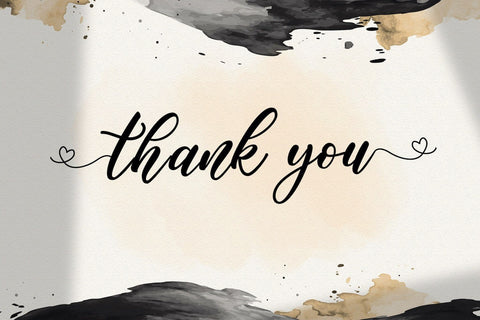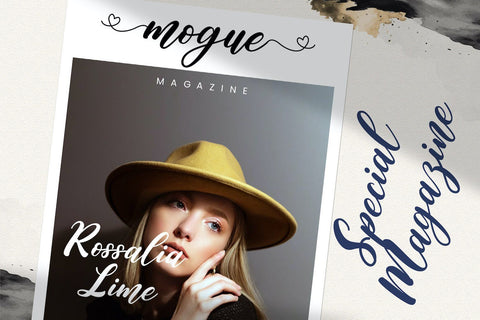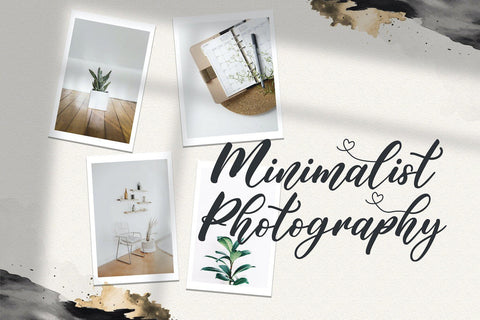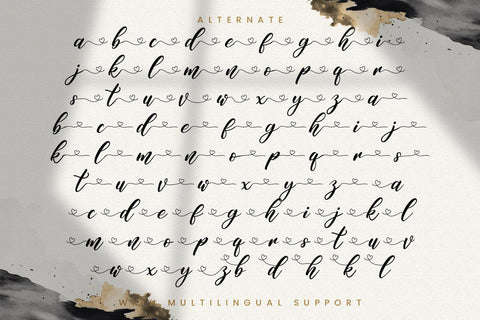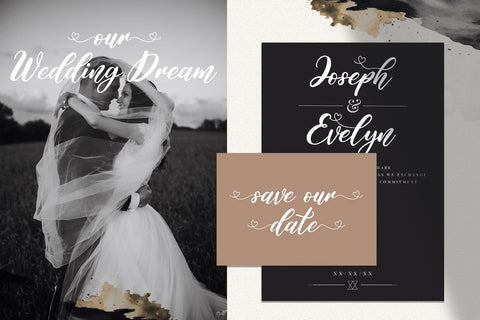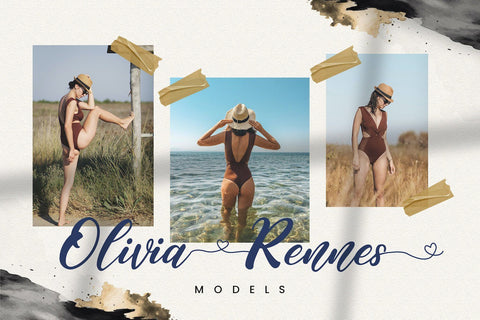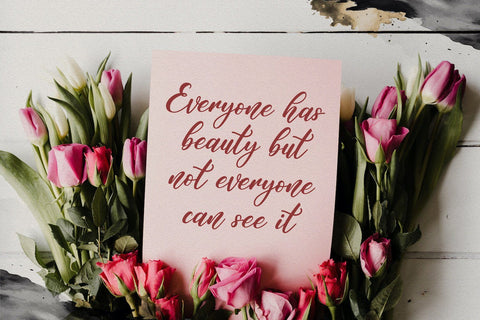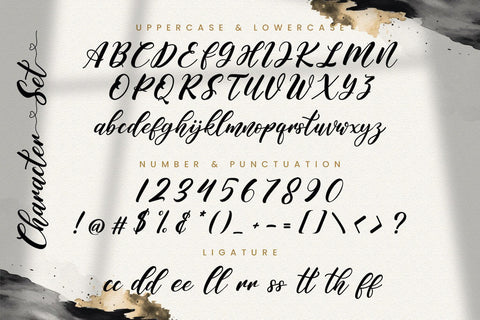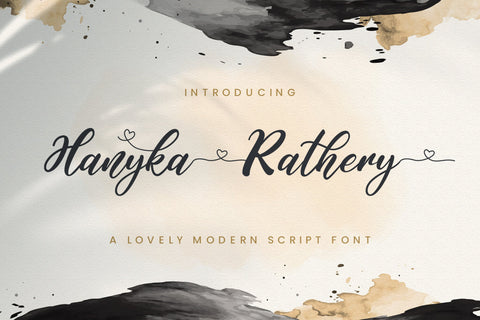
Hanyka Rathery - Lovely Script Font
Introducing Hanyka Rathery - Lovely Script Font
Hanyka Rathery is an exquisite handwritten font, masterfully designed to become a true favorite. It maintains its classy calligraphic influences while feeling contemporary and fresh. Fall in love with it and bring your projects to the highest levels!
This font is PUA encoded which means you can access all of the glyphs and swashes with ease! It features a varying baseline, smooth lines, gorgeous glyphs and stunning alternates.
- Stylistic Alternates
Hanyka Rathery - Lovely Script Font